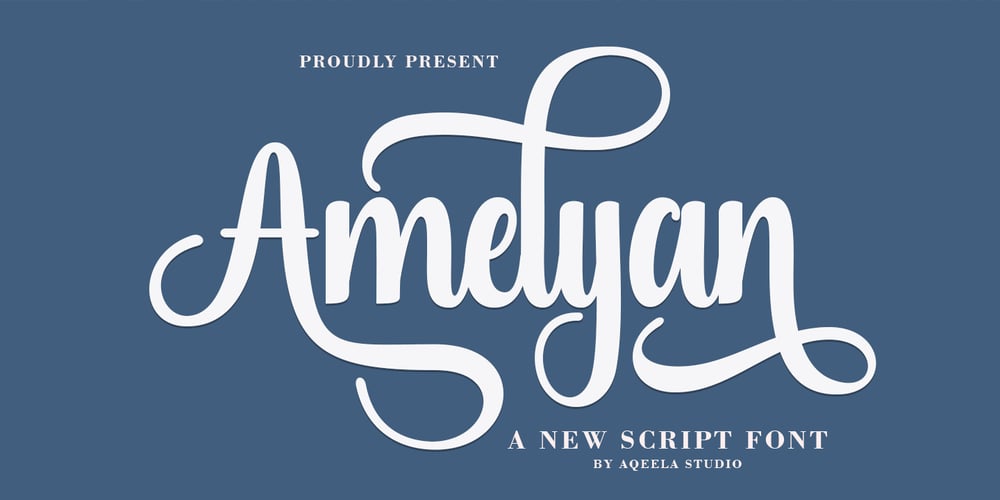
Amelyan
Amelyan font
Amelyan Font Family was designed by Muhammad Nasir and published by Aqeela Studio. Amelyan contains 1 styles and family package options. Amelyan is a sweet and friendly calligraphy font. Fresh and neat, this font is ideal for writing wedding invitations, cards, or any other design that might need a fun touch!